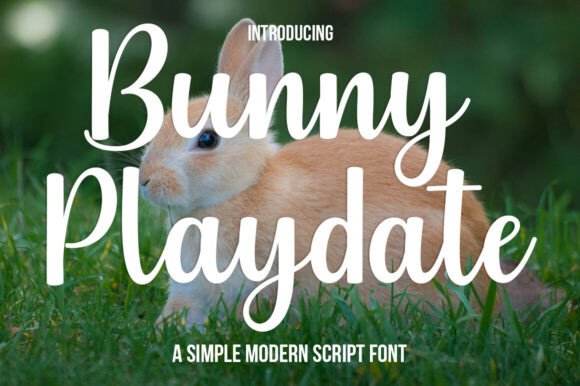
The Delightful Charm of Bunny Playdate Font
Have you ever been in the middle of a design project, and suddenly, you’re stuck on finding the perfect font? I recall a recent experience where I was working on a whimsical wedding invitation, and my client requested a font that exuded sweetness and romance. After hours of searching, I stumbled upon Bunny Playdate, a cursive handwritten font that instantly captured the essence of what I was looking for.
With its soft and welcoming curves, Bunny Playdate breathes life into a range of design concepts, infusing each piece with a sense of passion and harmony. In this article, we’ll dive into the world of Bunny Playdate, exploring its features, uses, and what makes it an excellent addition to your design toolkit.
An Honest Review of Bunny Playdate
- ✨ Sweet and Whimsical: Bunny Playdate’s cursive handwritten style is perfect for adding a touch of romance and playfulness to your designs.
- ✅ Versatile: This font is ideal for a wide range of design projects, including branding, logos, wedding collateral, greeting cards, fashion lookbooks, and marketing promotions.
- 💫 Elegant and Sophisticated: Bunny Playdate flawlessly blends sophistication with casual elegance, making it perfect for designs that require a touch of refinement.
While Bunny Playdate is an excellent font, there are a few things to keep in mind:
- ⚠️ Legibility at Small Sizes: As with many script fonts, Bunny Playdate may become less legible at very small sizes. It’s best to use it at larger sizes or for headlines.
- 🤔 Glyph Limitations: While Bunny Playdate has a range of glyphs and OpenType features, it may not have an exhaustive set of characters or language support.
Bunny Playdate supports OpenType features, including:
- Swashes: Add flair to your text with elegant swashes.
- Ligatures: Combine letters for a more natural, handwritten look.
- Stylistic Alternates: Switch between different font styles to add visual interest.
The Backstory of Bunny Playdate
Bunny Playdate was designed with the intention of capturing the whimsy and romance of a handwritten font. Its creator aimed to craft a font that would be both elegant and approachable, perfect for a range of design projects. Whether you’re designing wedding invitations or fashion lookbooks, Bunny Playdate is sure to add a touch of sweetness and charm.
Q: What type of designs is Bunny Playdate best suited for?
A: Bunny Playdate is ideal for designs that require a touch of whimsy and romance, such as wedding invitations, greeting cards, and fashion lookbooks.
Q: Does Bunny Playdate support OpenType features?
A: Yes, Bunny Playdate supports OpenType features, including swashes, ligatures, and stylistic alternates.